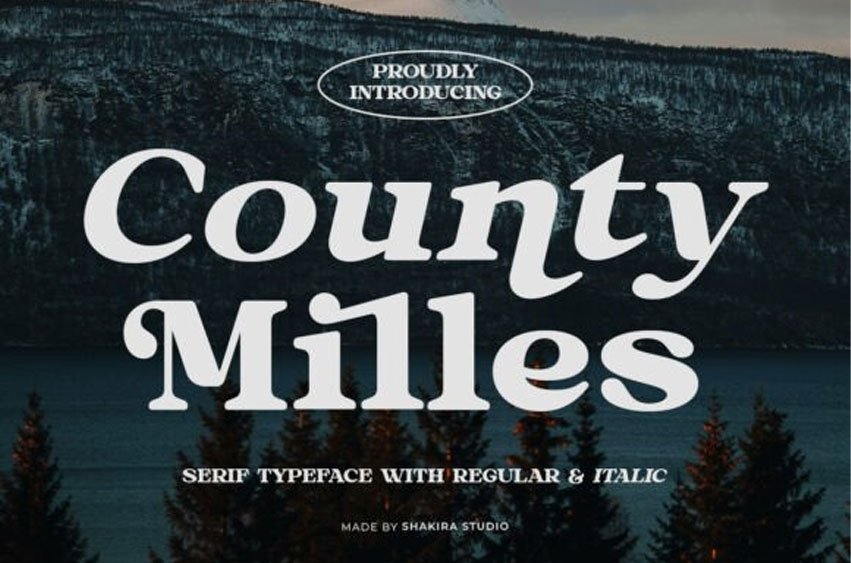
County Miles Font is a serif typeface that blends modern and retro styles, offering a unique and timeless look. With Regular and Italic variants, along with stylish alternates and ligatures, this font provides high flexibility for various design projects such as branding, posters, magazines, and print materials.
Designed to enhance creativity, County Miles is perfect for graphic designers and branding professionals seeking a font with strong character and high aesthetics. Each letter is crafted with precision, ensuring optimal readability in both digital and print formats.